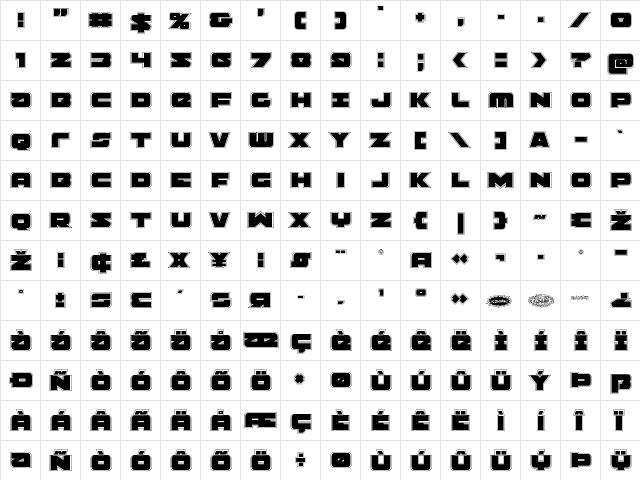
Banjin Academy Regular
Design Context for Banjin Academy Typeface
Banjin Academy is a composed and adaptable typeface that performs quietly and consistently across a wide range of design contexts.